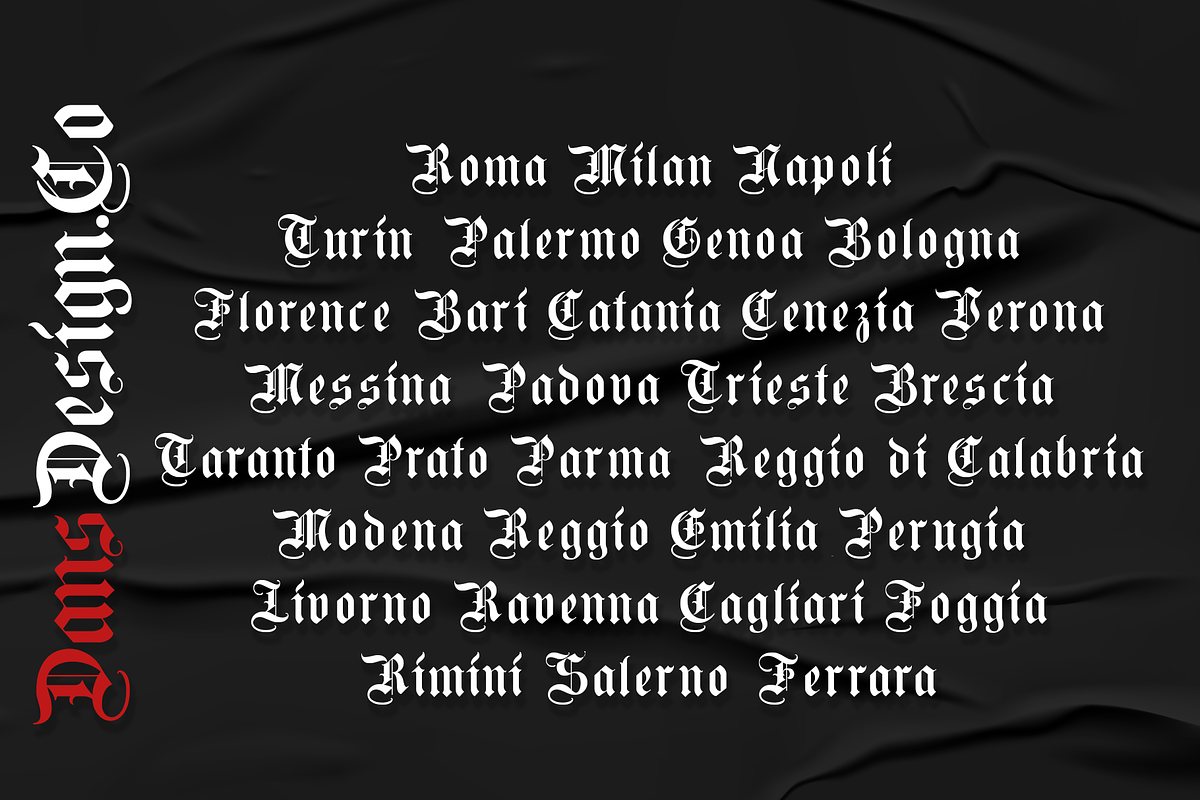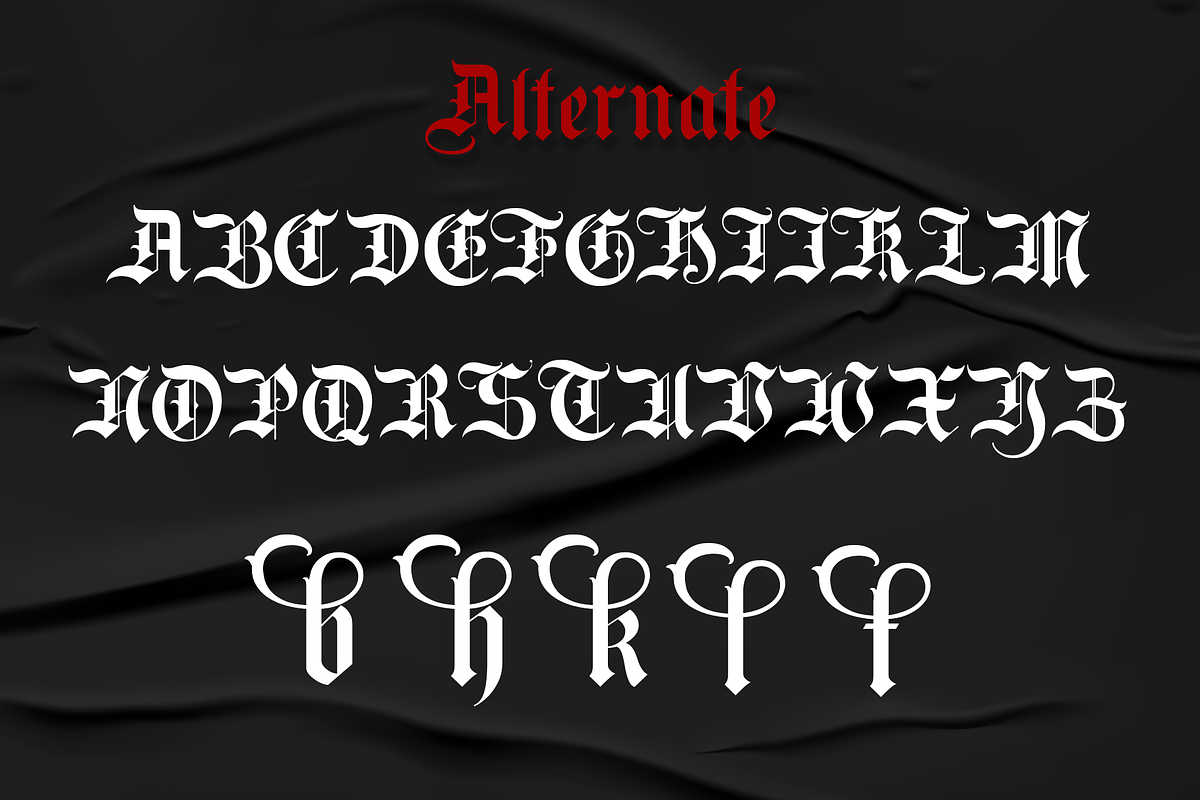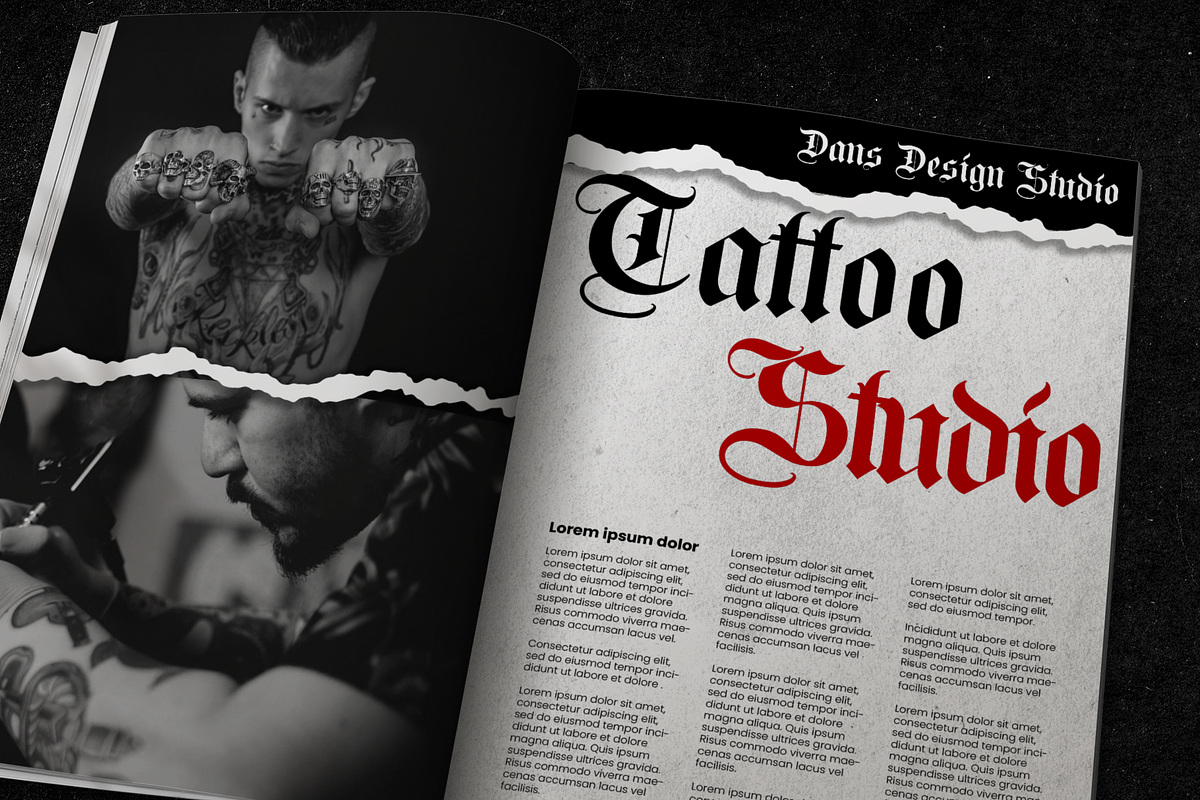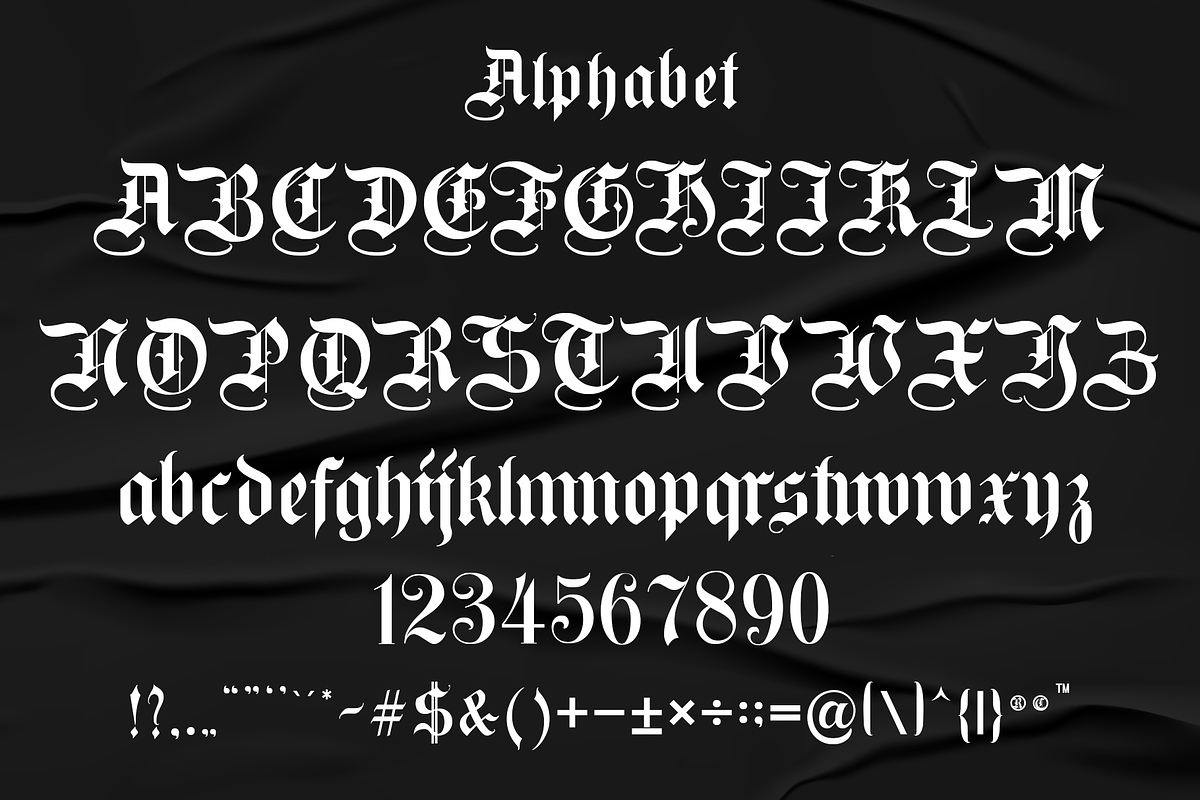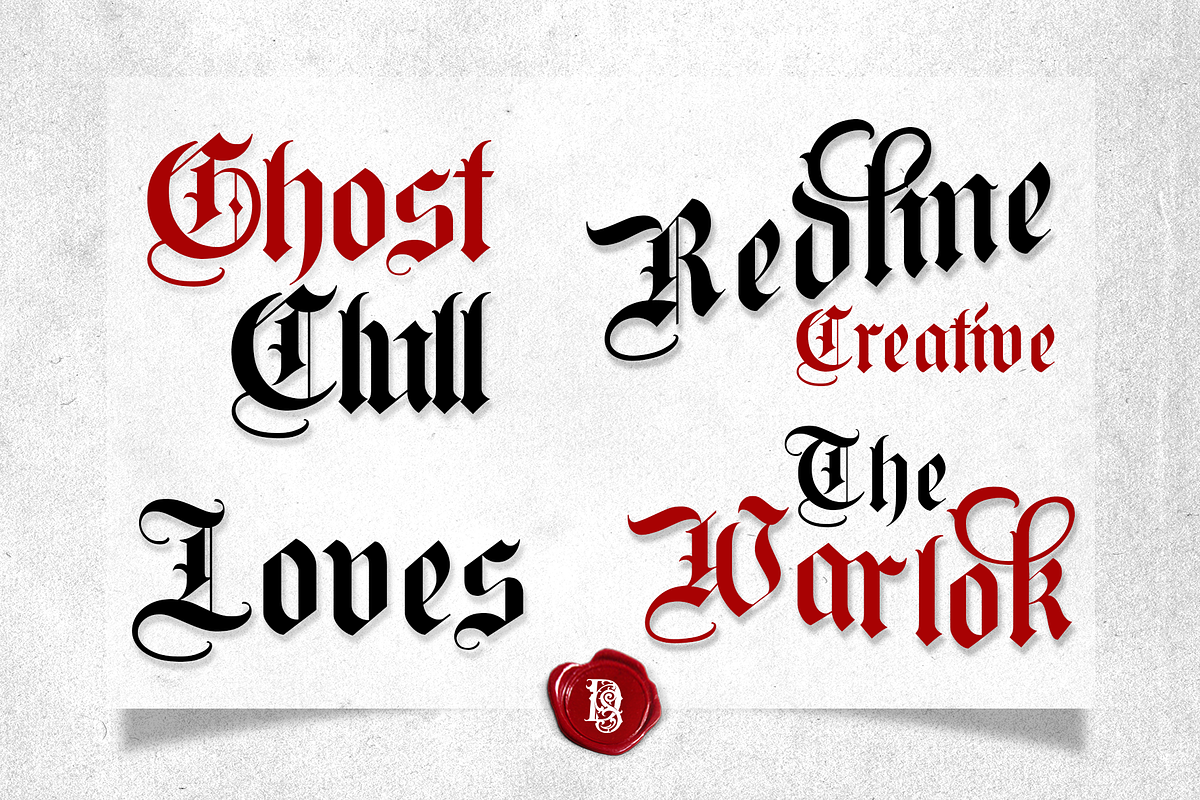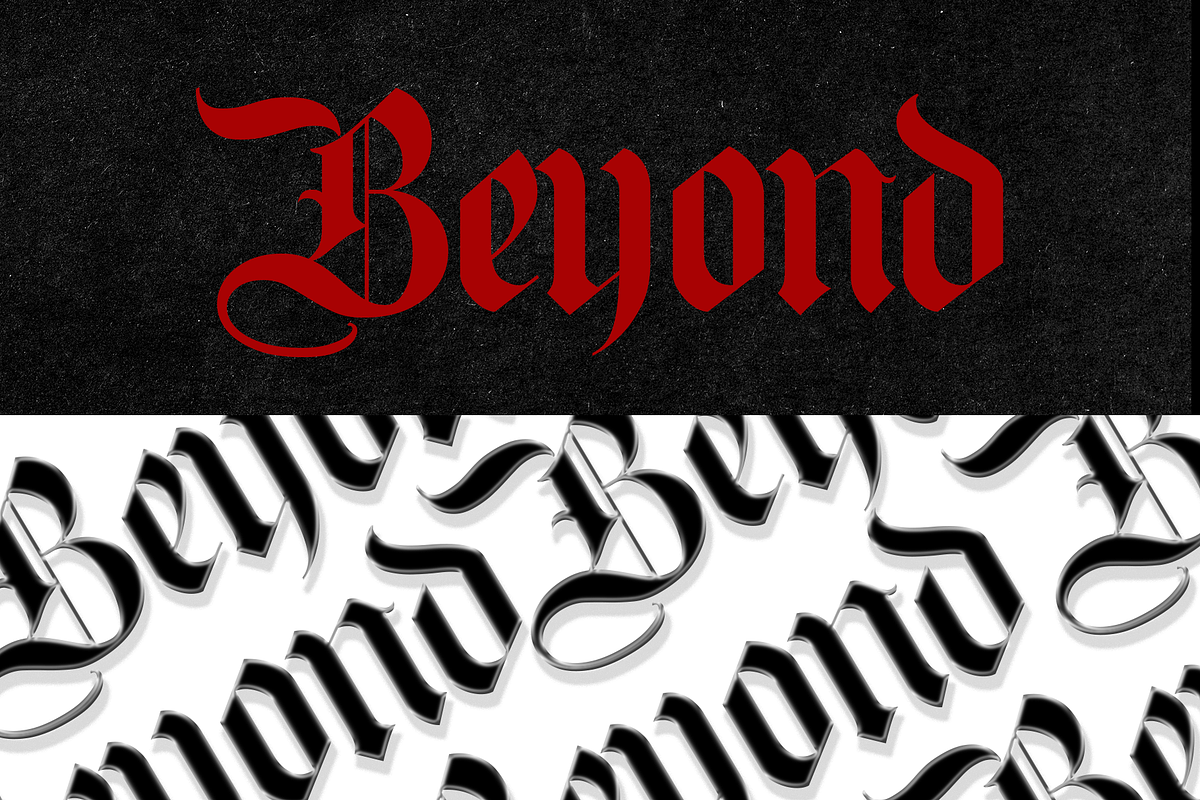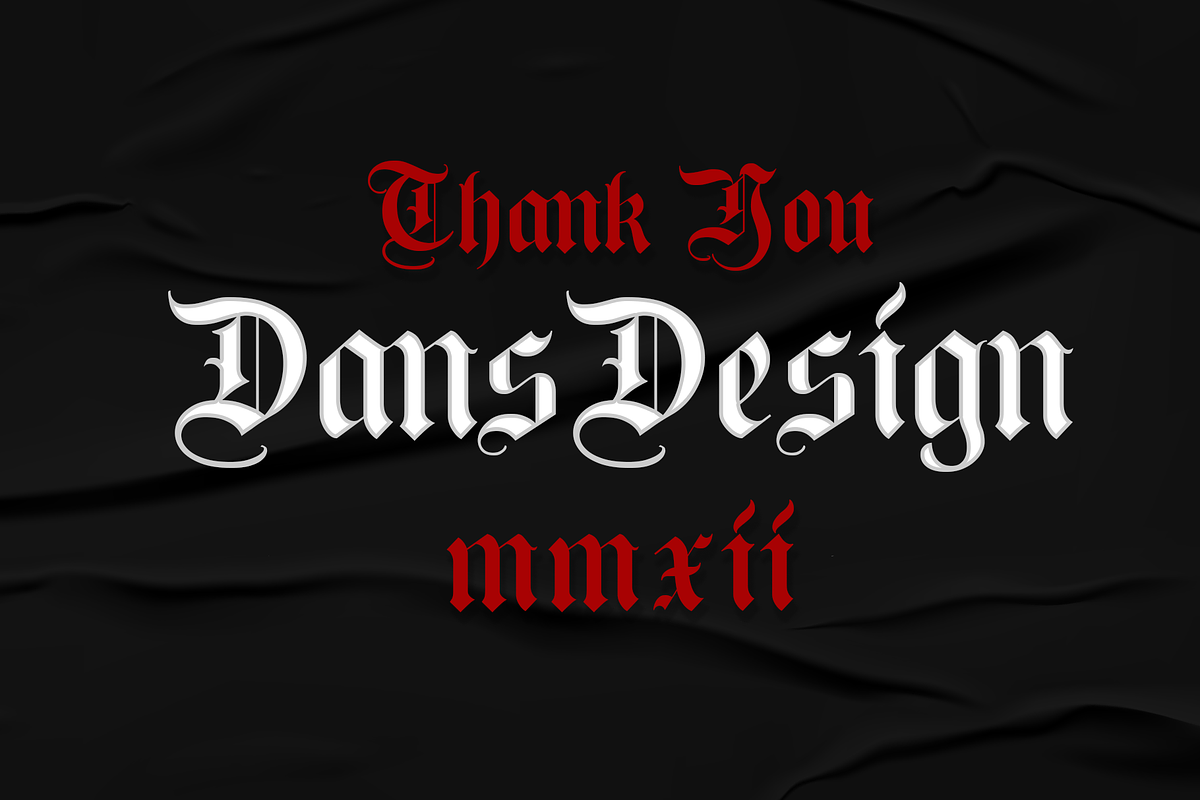
Brightos Blackletter font
Dansdesign Proudly present Brightos modern blackletter font, This font is made with references to various letters that I combine and design with my style.
Brightos are great and usefull for product logo, poster title, headline, packaging, badge, packaging logo , clothing brand logo, Vintage design and much more